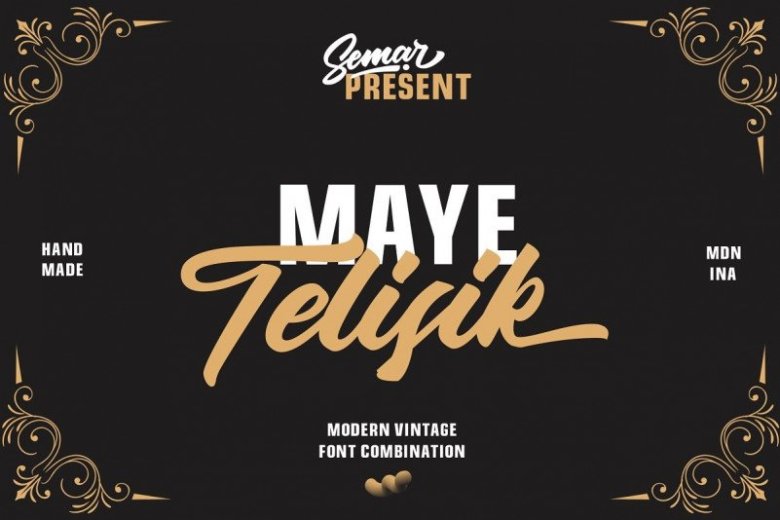
Telisik Font
Telisik Font is carefully script typeface with stylist style, clean, and style a script handlettering style.
Ideal for branding, logos, handwriting quotes, product packaging, headers, posters, merchandise, social media Books / Cover titles, special events, etc.